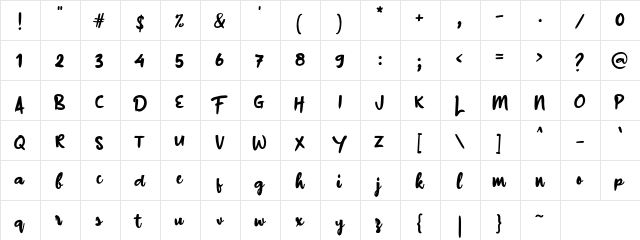
a Buster Down Regular
| Designer | Wahyu Eka Prasetya |
Design Context for a Buster Down Typeface
a Buster Down is a composed and adaptable typeface that performs quietly and consistently across a wide range of design contexts.